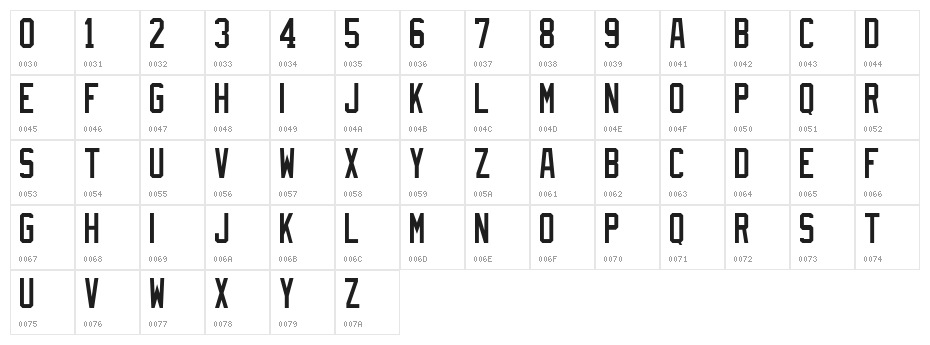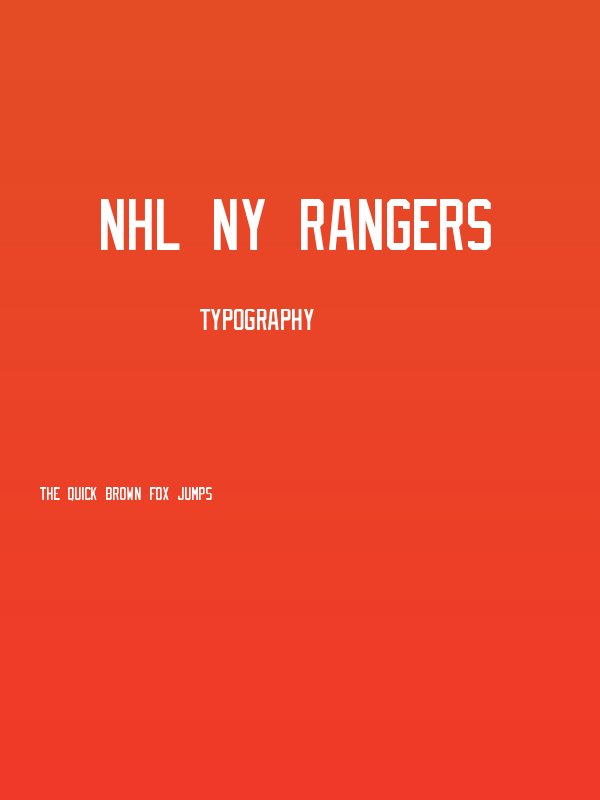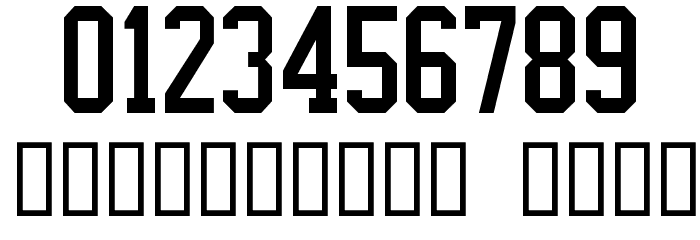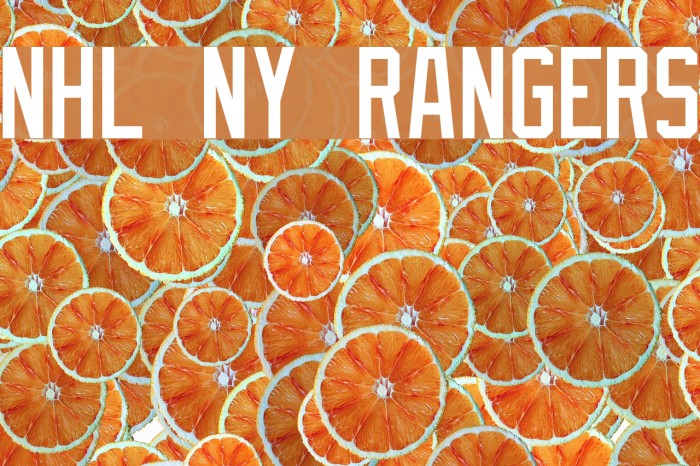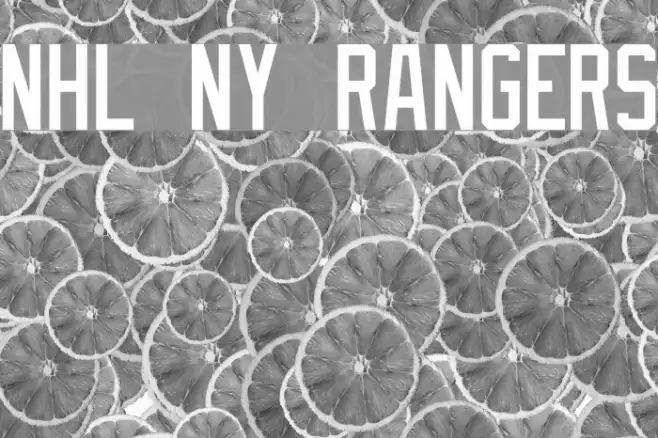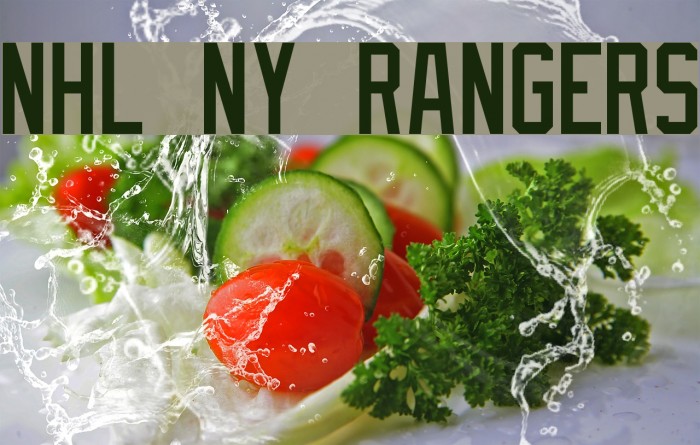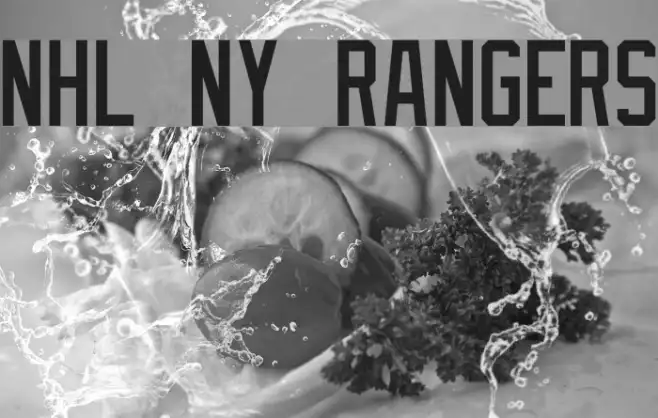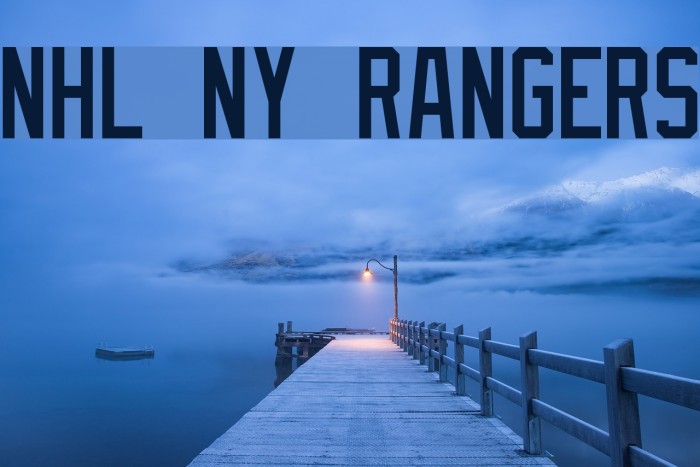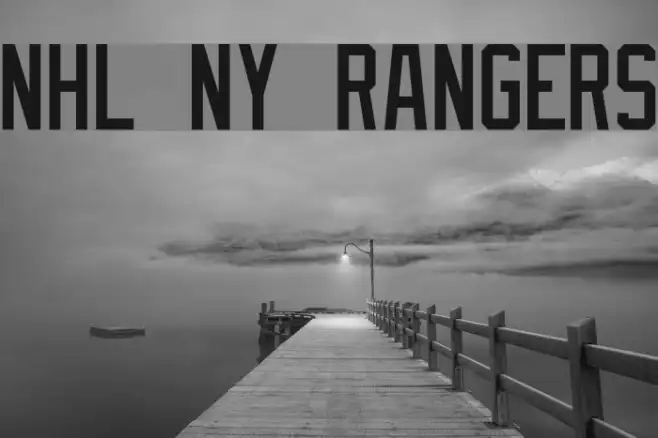
NHL NY Rangers Font
NHL NY Rangers Description
This font features a bold and impactful design with a strong geometric structure. The uppercase letters are tall and narrow, with sharp angles and clean lines that convey a sense of strength and precision. The numbers are equally bold, maintaining the same geometric style, which ensures consistency across all characters. The overall appearance is modern and assertive, making it ideal for projects that require a commanding presence. The font lacks lowercase letters and special characters, focusing on uppercase and numeric characters, which enhances its suitability for sports and team branding.
| Width | Condensed |
| Use Case | Logos, Headlines |
| Proposed Projects | Perfect for sports team logos, merchandise, and branding materials requiring a strong, bold presence. |